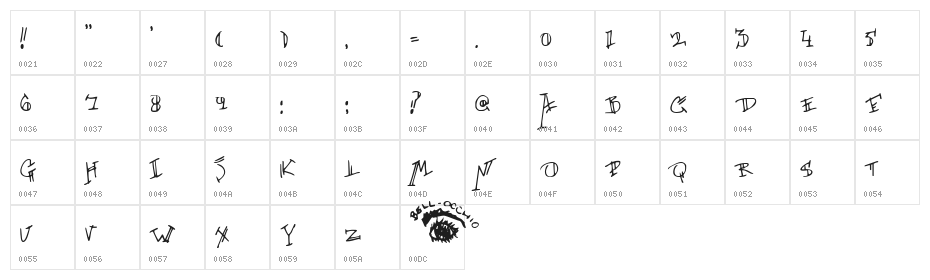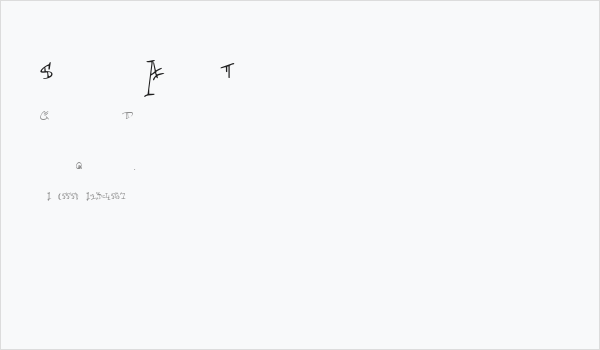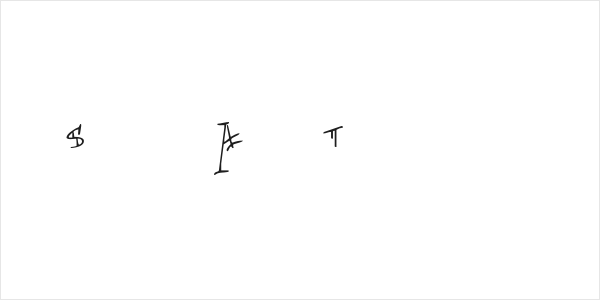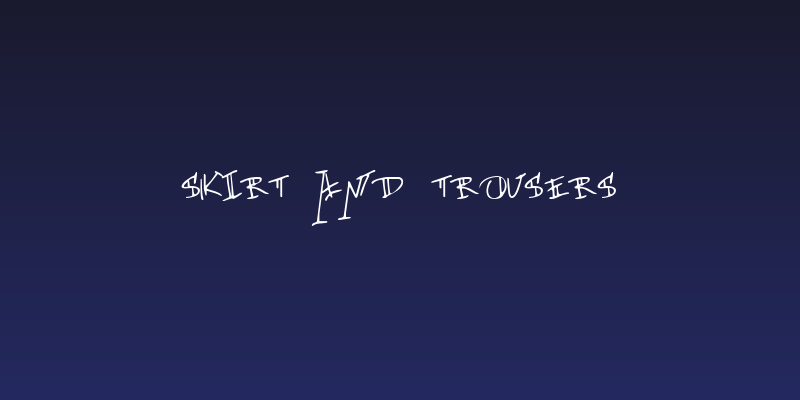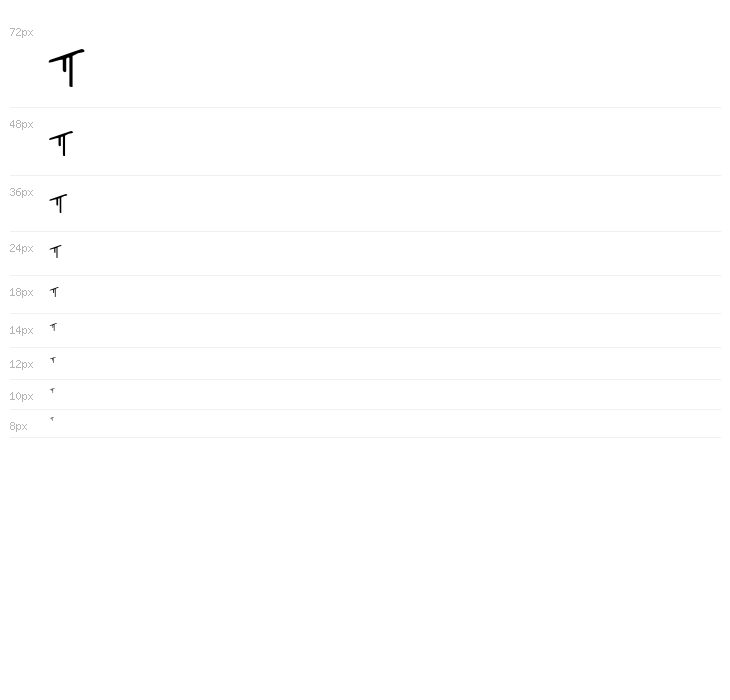
Skirt And Trousers Font
Skirt And Trousers Description
This font features a dynamic and edgy style, characterized by its sharp angles and irregular strokes. The uppercase letters exhibit a bold presence with exaggerated serifs and a slightly slanted orientation, giving it a rebellious and energetic feel. The lowercase letters maintain this theme with unique, playful forms that complement the uppercase set. Numbers and special characters follow suit, adding to the font's distinctive personality. The overall design is reminiscent of graffiti or street art, making it ideal for projects that require a bold and unconventional aesthetic.
| Overall Style | Modern, Urban |
| Proposed Projects | Ideal for street art designs, music album covers, edgy branding, and event posters. |